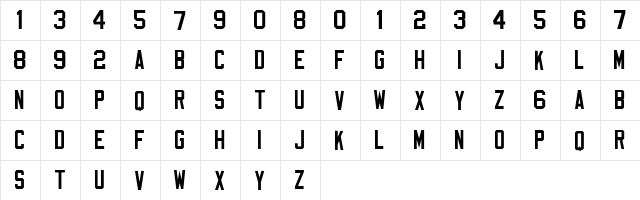
NFL Colts Throwback Regular
Design Context for NFL Colts Throwback Typeface
NFL Colts Throwback is a composed and adaptable typeface that performs quietly and consistently across a wide range of design contexts.